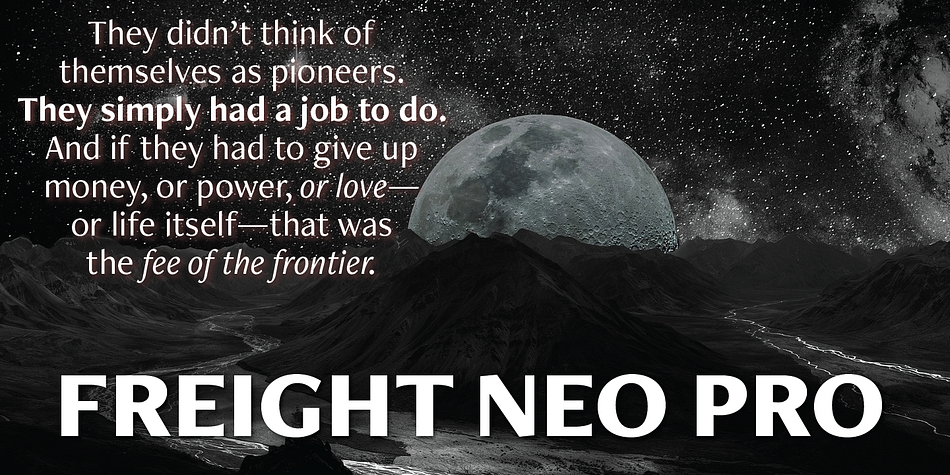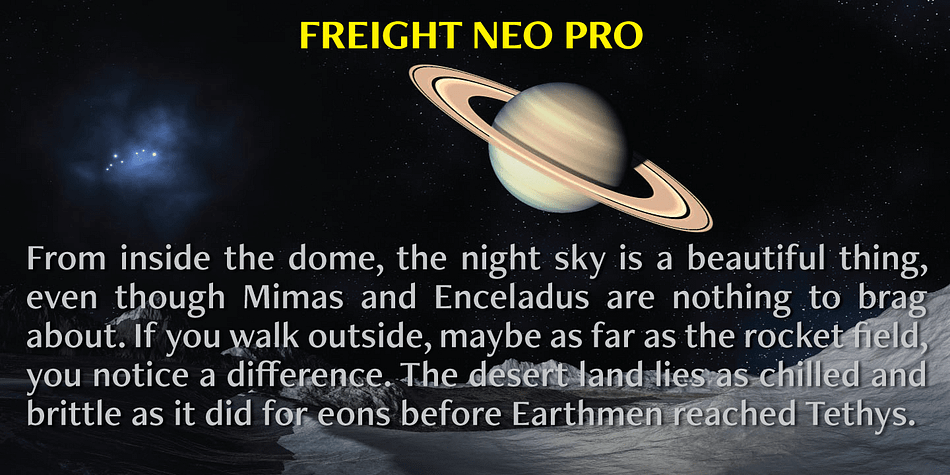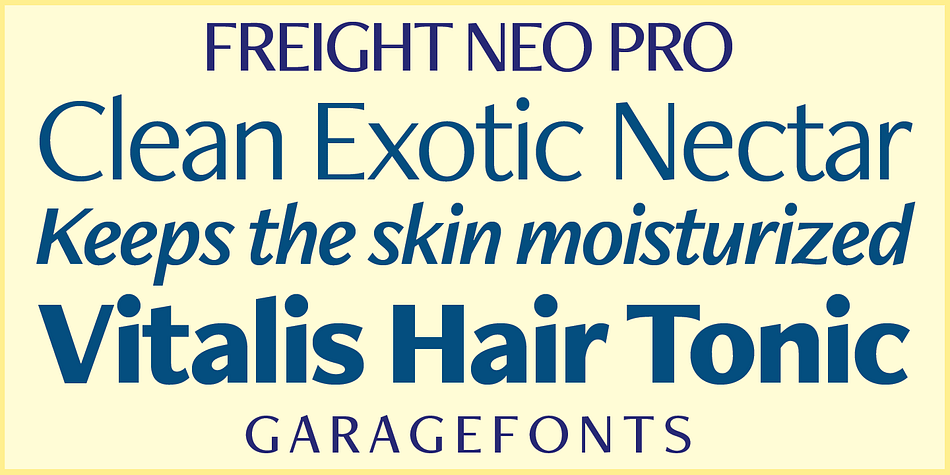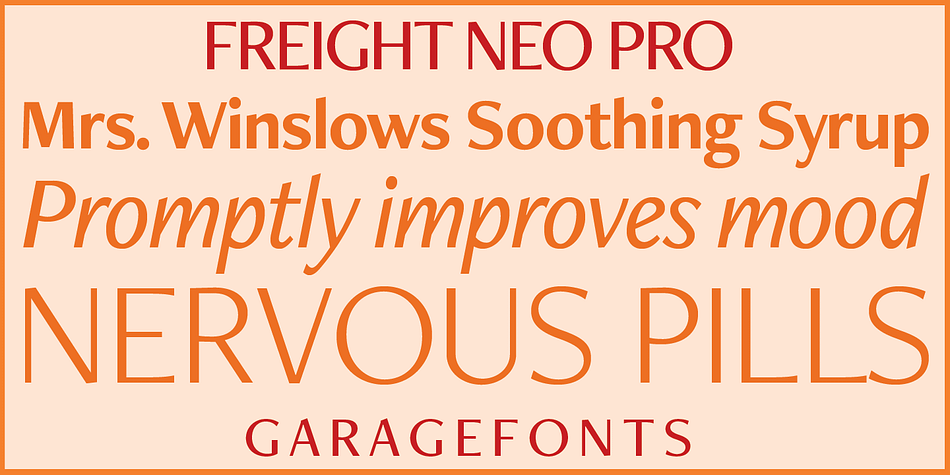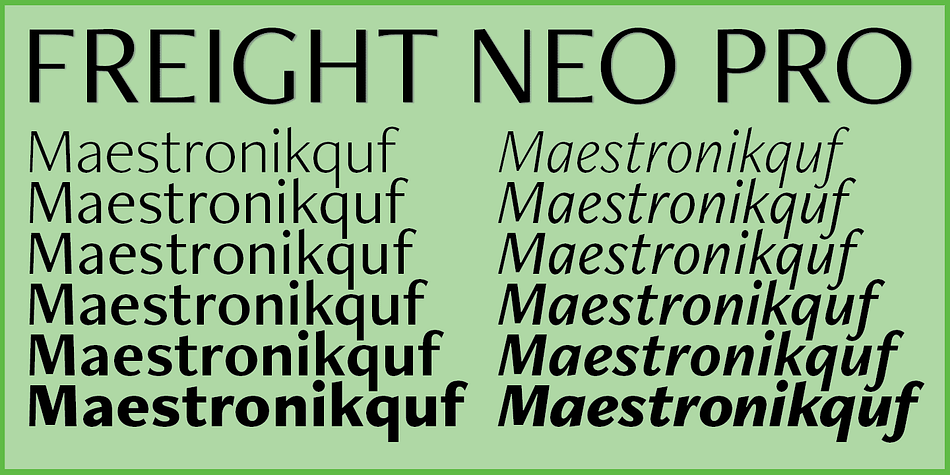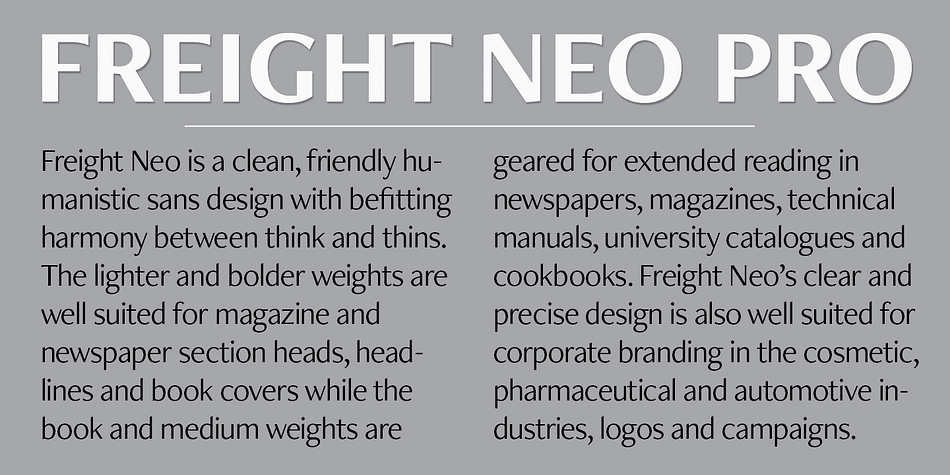
Freight Neo Pro
Designed by Robby Woodard, Freight Neo Pro is a sans serif font family. This typeface has twelve styles and was published by Freight Collection.
Freight Neo is a clean, friendly humanistic sans design with befitting harmony between think and thins. The lighter and bolder weights are well suited for magazine and newspaper section heads, headlines and book covers while the book and medium weights are geared for extended reading in newspapers, magazines, technical manuals, university catalogues and cookbooks. Freight Neo’s clear and precise design is also well suited for corporate branding in the cosmetic, pharmaceutical and automotive industries, logos and campaigns.
Foundry Freight Collection
Designer Robby Woodard